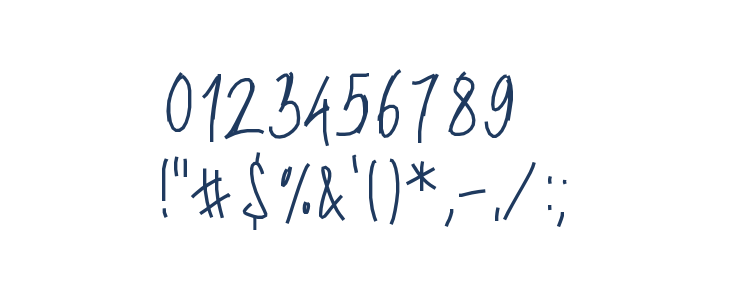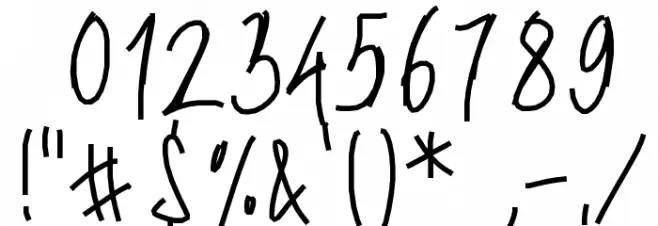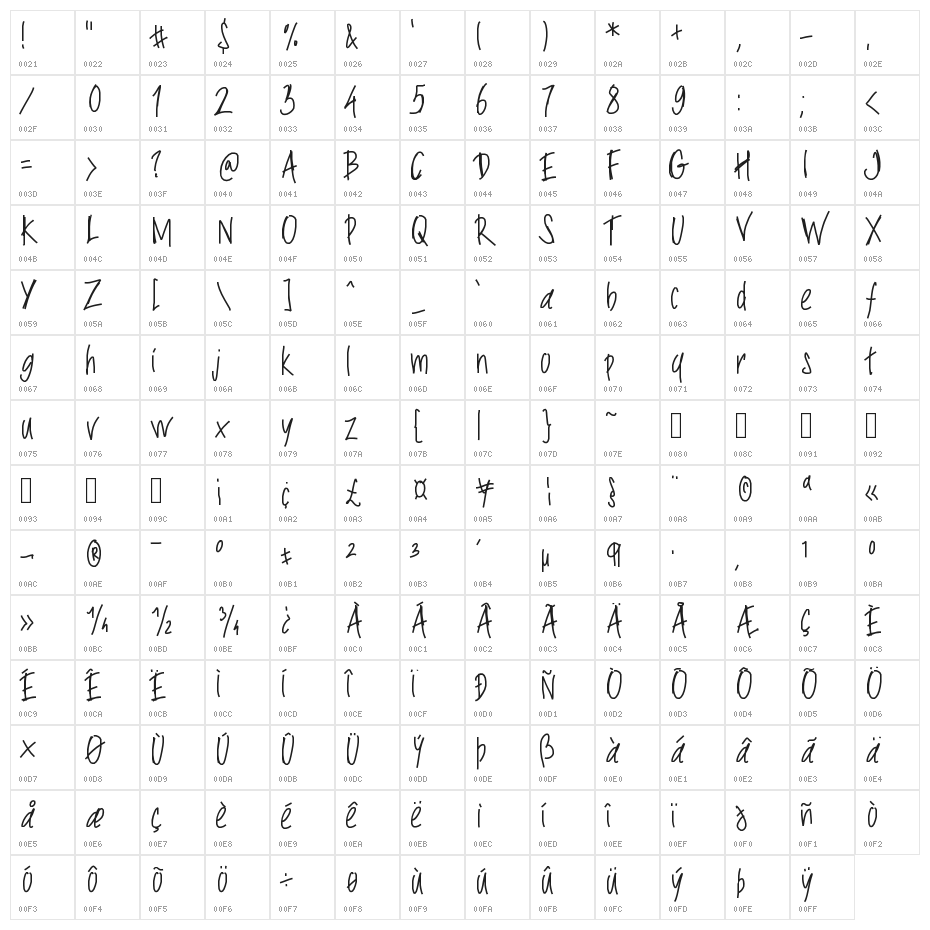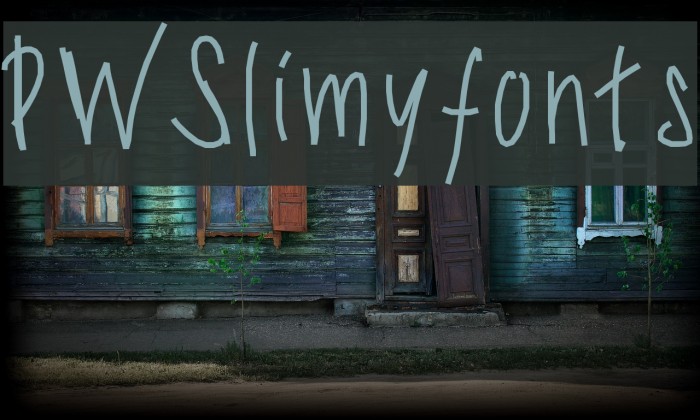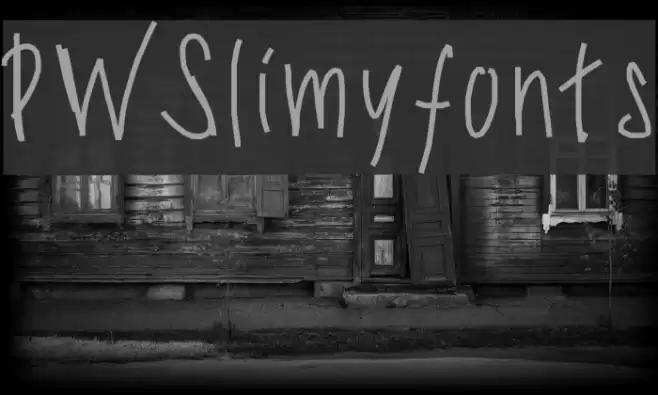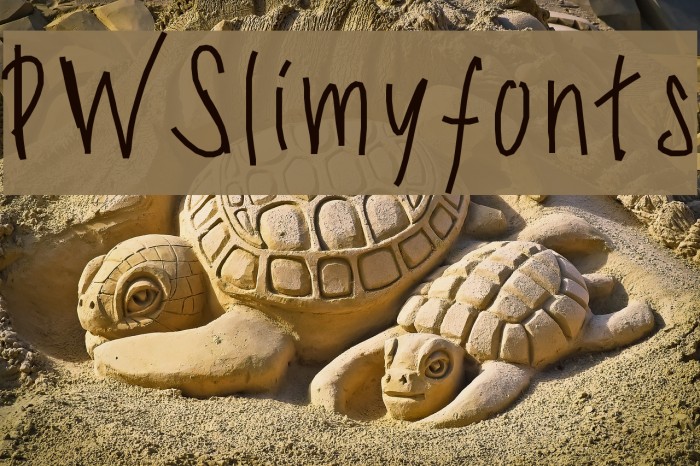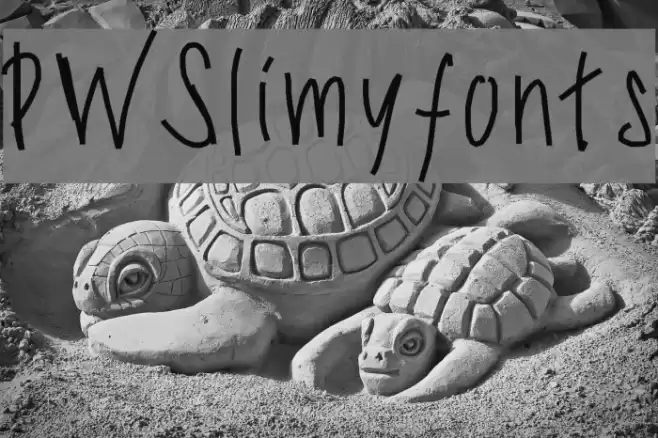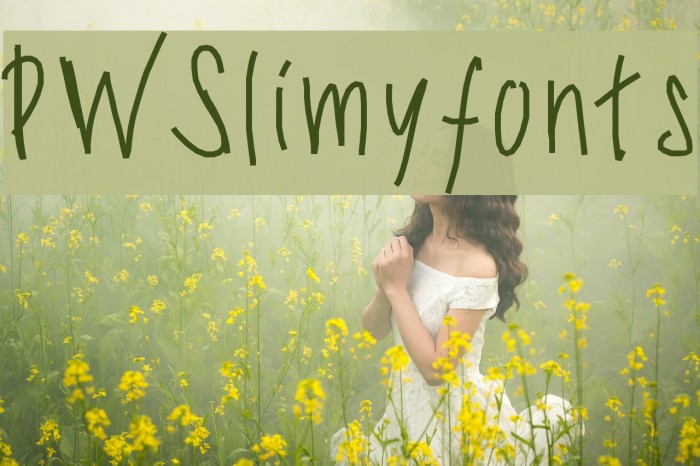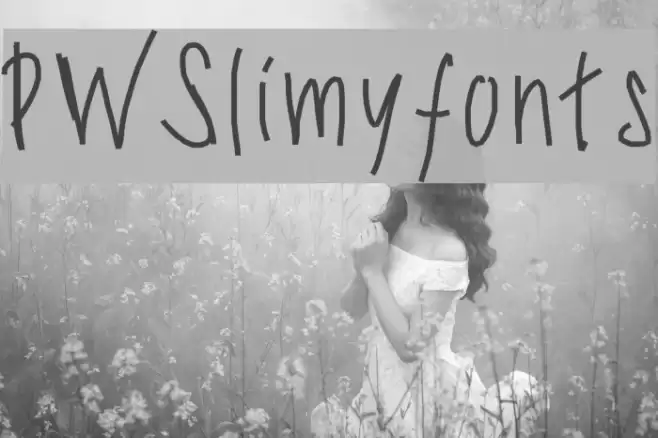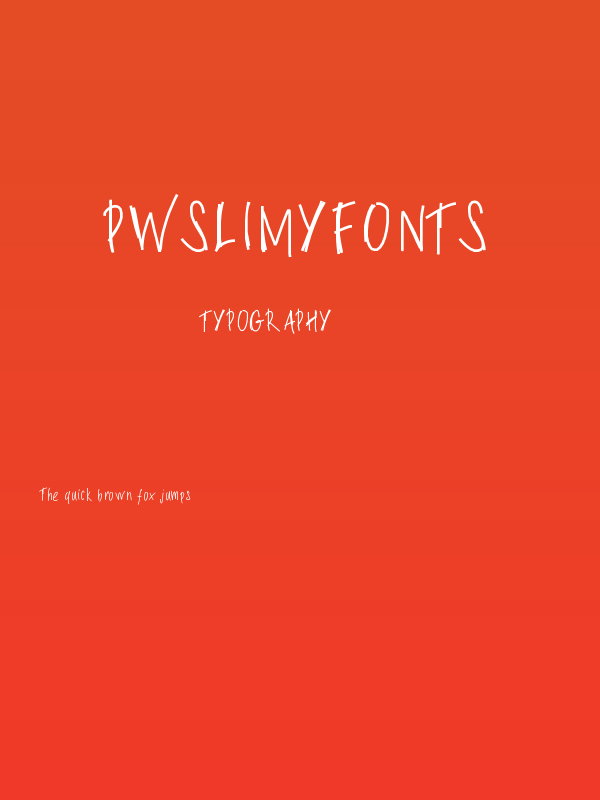
PWSlimyfonts Font
PWSlimyfonts Description
This font features a playful, handwritten style with a casual and informal appearance. The letters are slightly irregular, giving it a whimsical and personal touch. The strokes are thin and consistent, with a slight slant that adds to its dynamic feel. It includes a full set of uppercase and lowercase letters, numbers, and a variety of special characters, making it versatile for different uses. The overall look is approachable and friendly, suitable for projects that require a human touch.